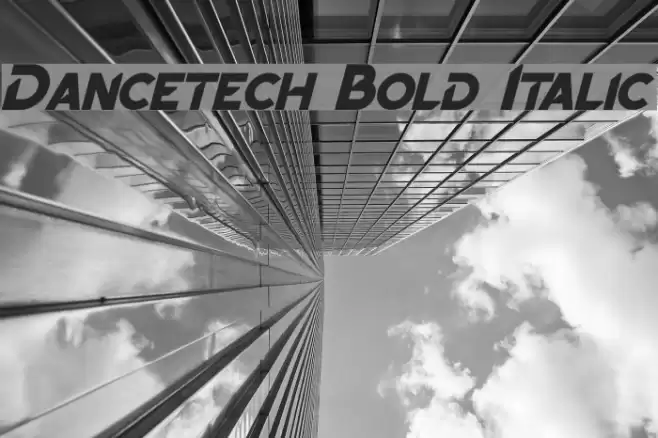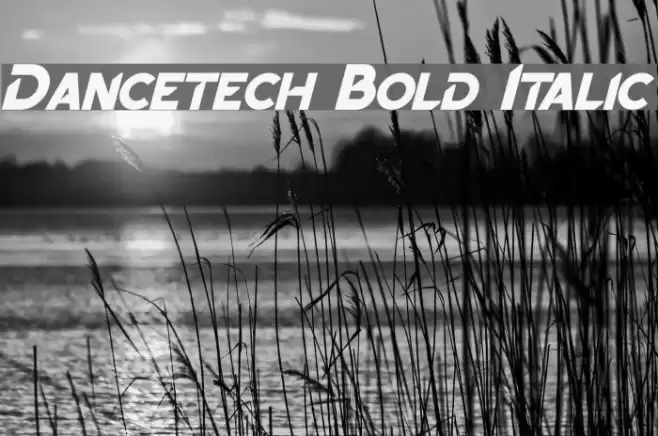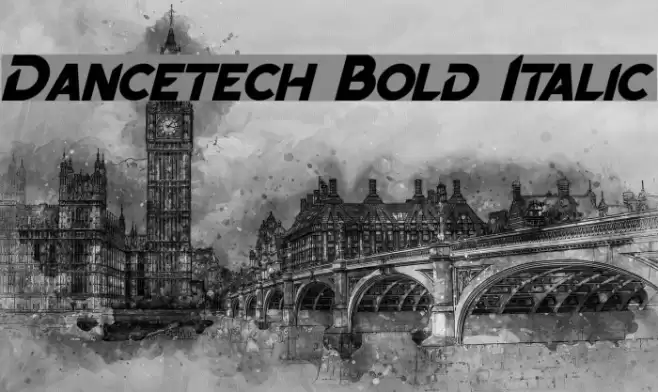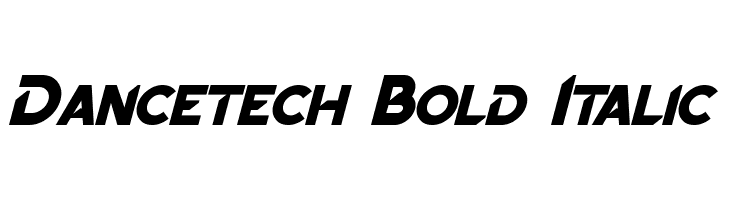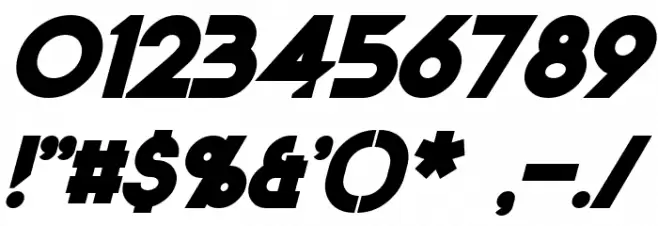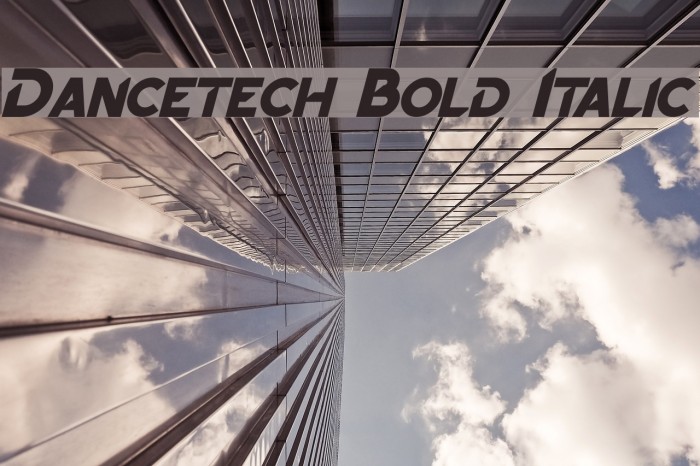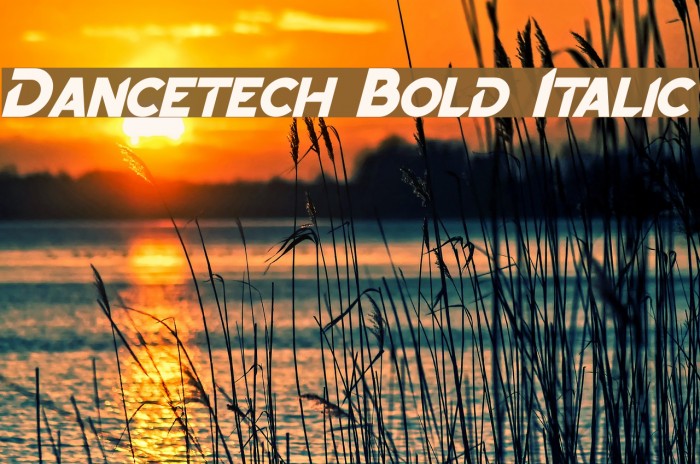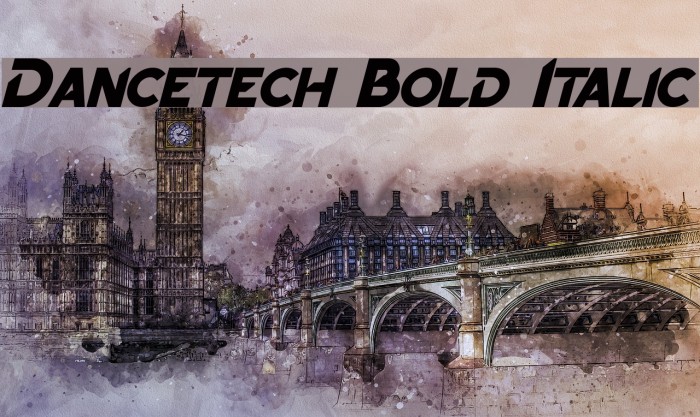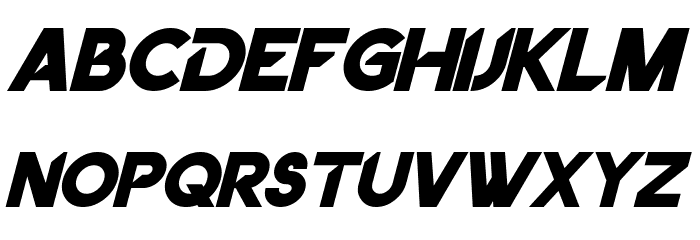
Dancetech Bold Italic Font
Dancetech Bold Italic Description
This font exhibits a bold and dynamic style with a strong italic slant, giving it a sense of movement and energy. The characters are thick and robust, making them highly visible and impactful. The design features sharp angles and clean lines, contributing to a modern and futuristic aesthetic. The uppercase and lowercase letters maintain a consistent style, while the numerals and special characters are designed to match the boldness and slant of the alphabet. This font is ideal for projects that require a strong visual presence and a contemporary feel.
A bold, italic font with a dynamic and modern style from Uncategorized fonts.
- Proposed Projects: Perfect for sports branding, tech-related designs, dynamic posters, and modern advertising campaigns.